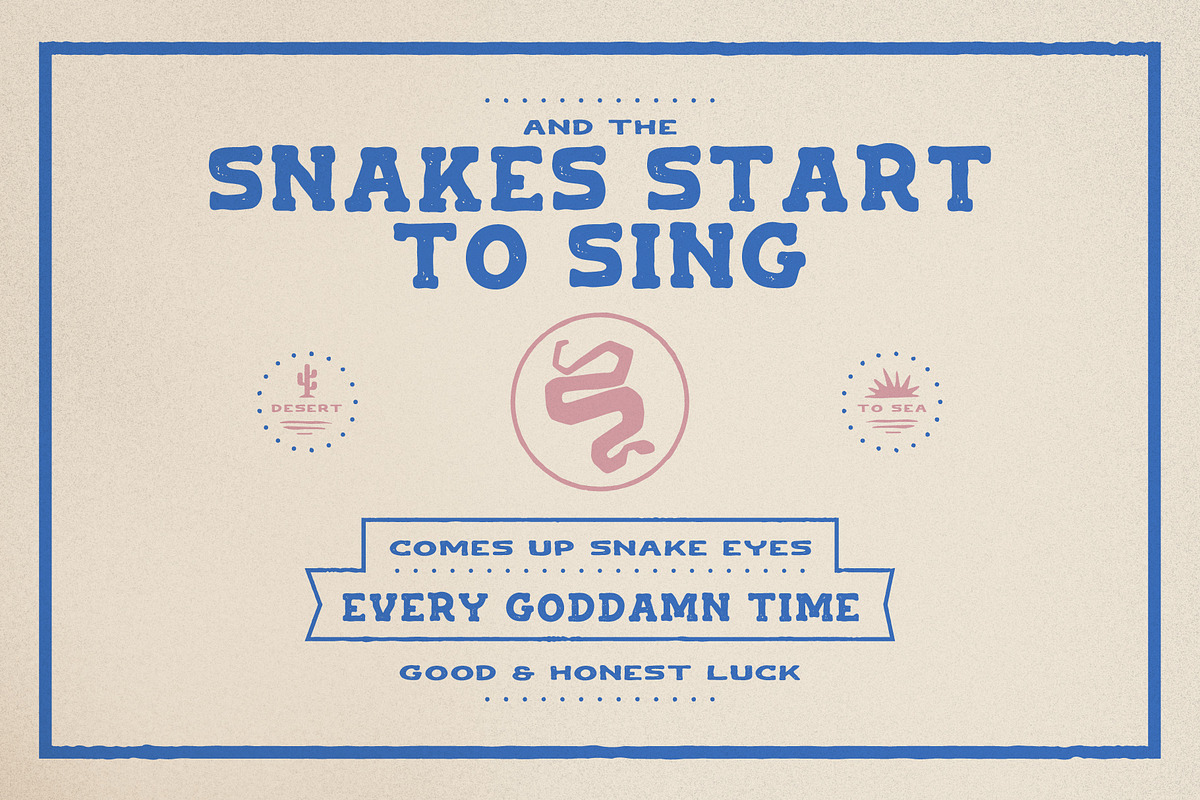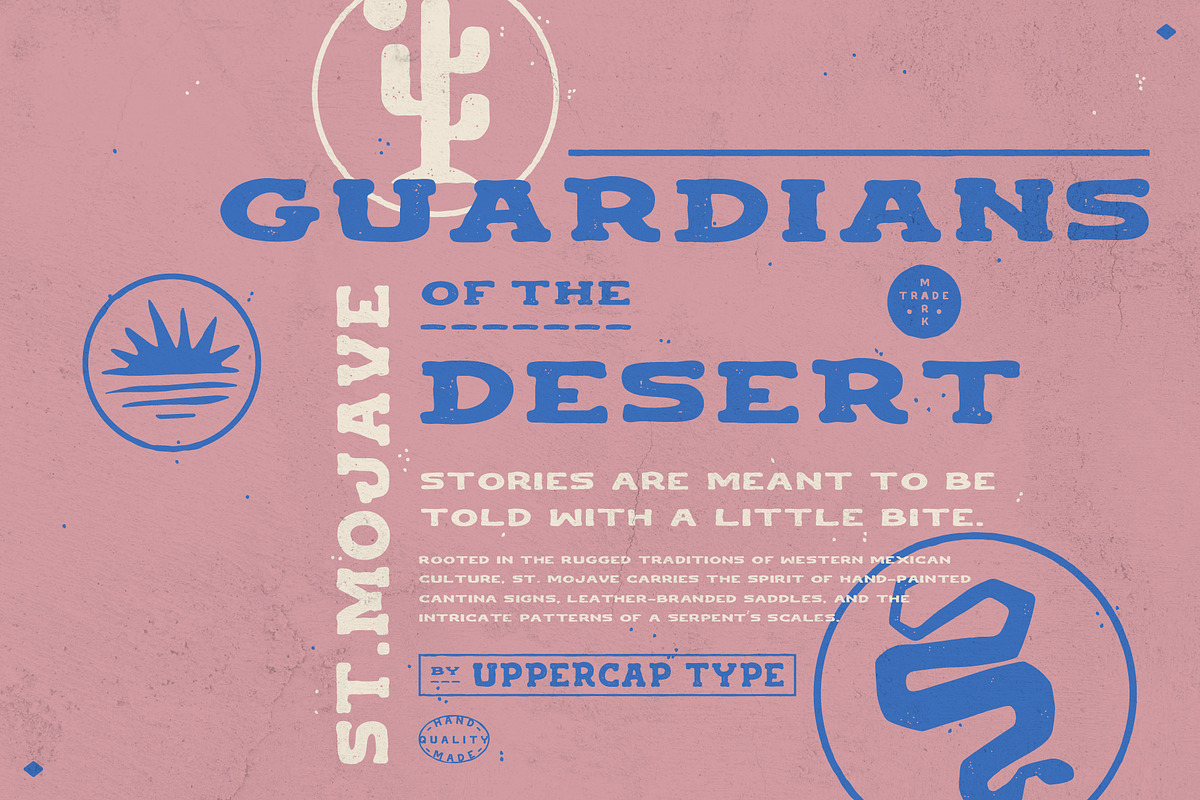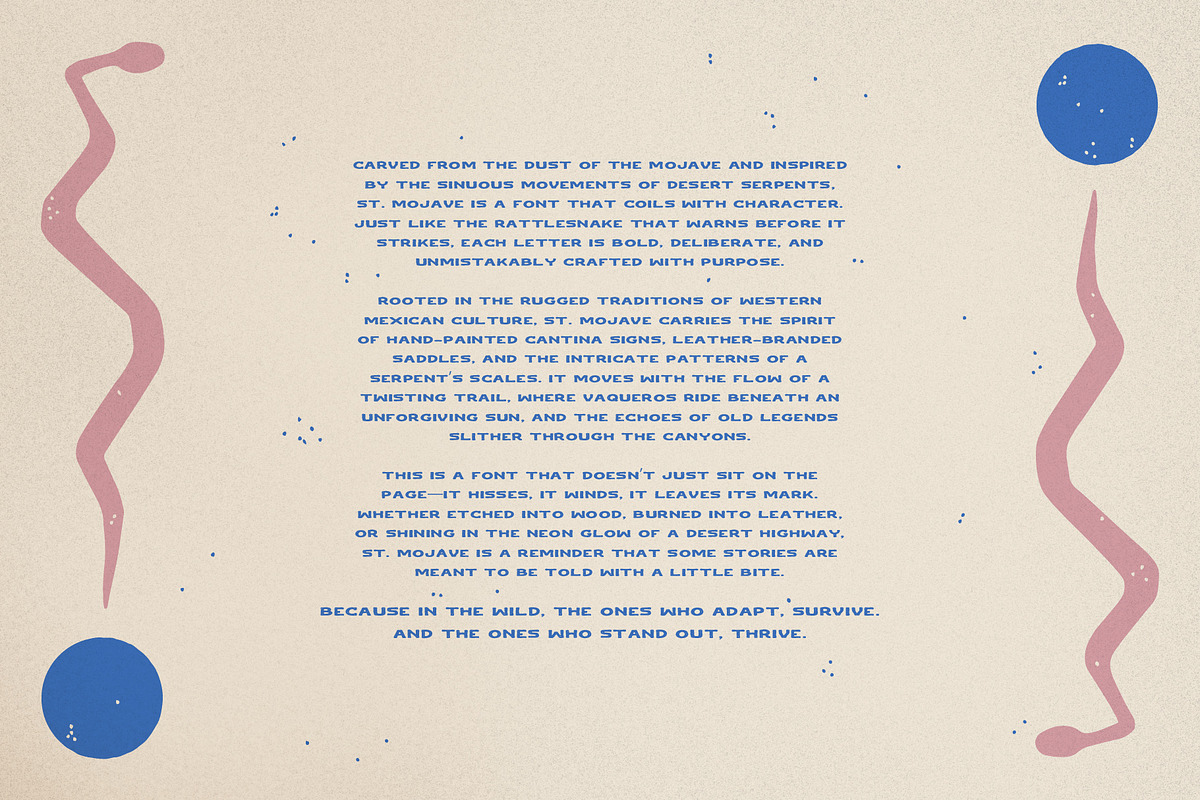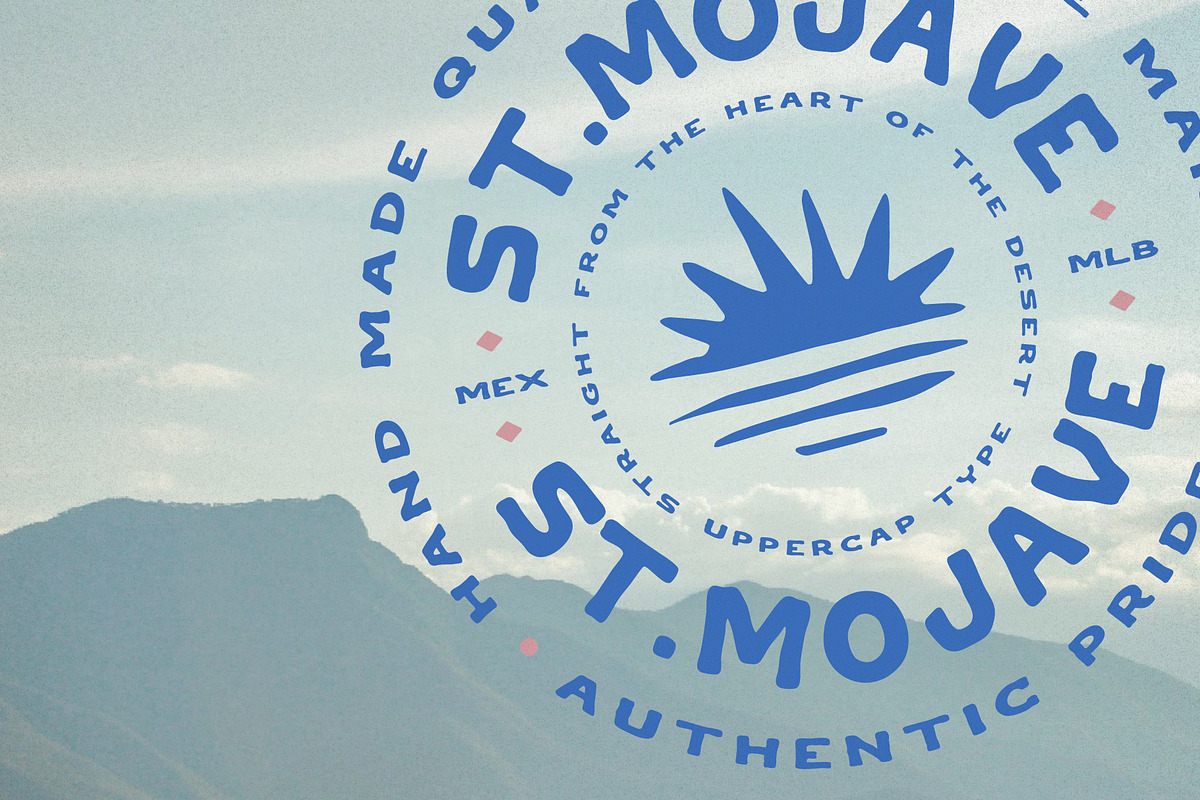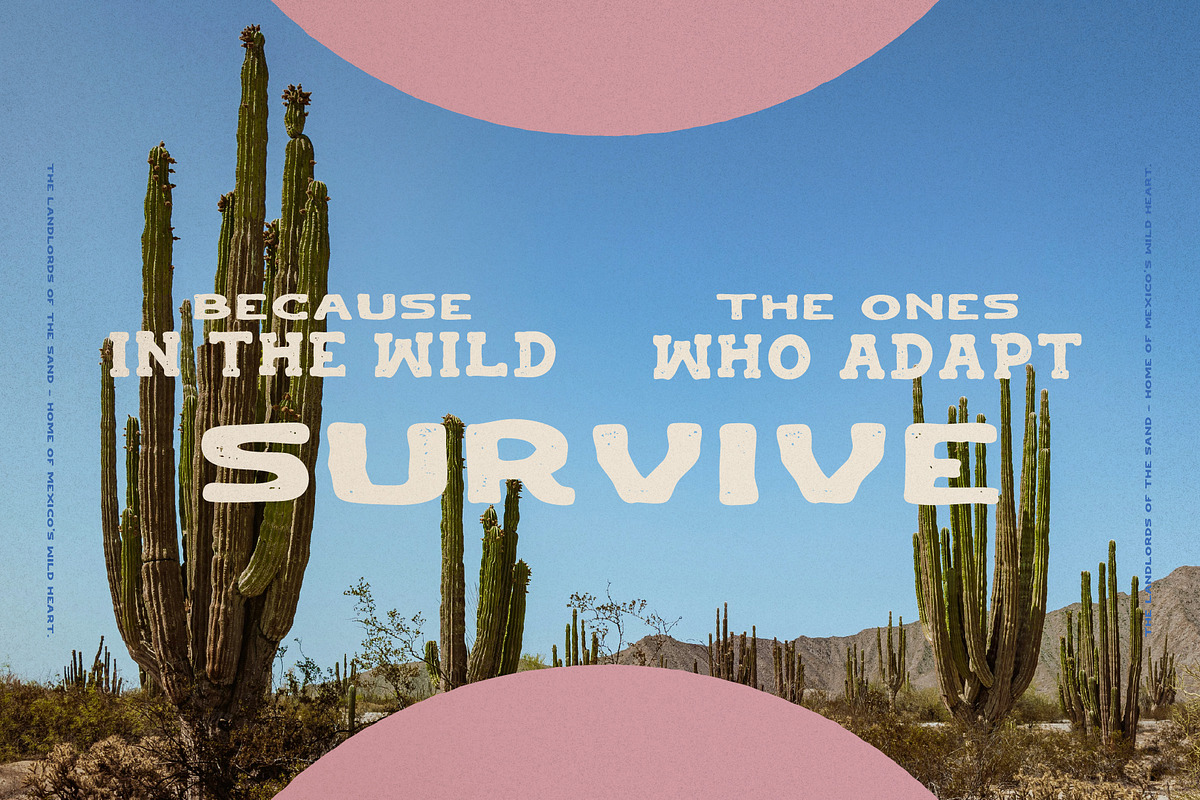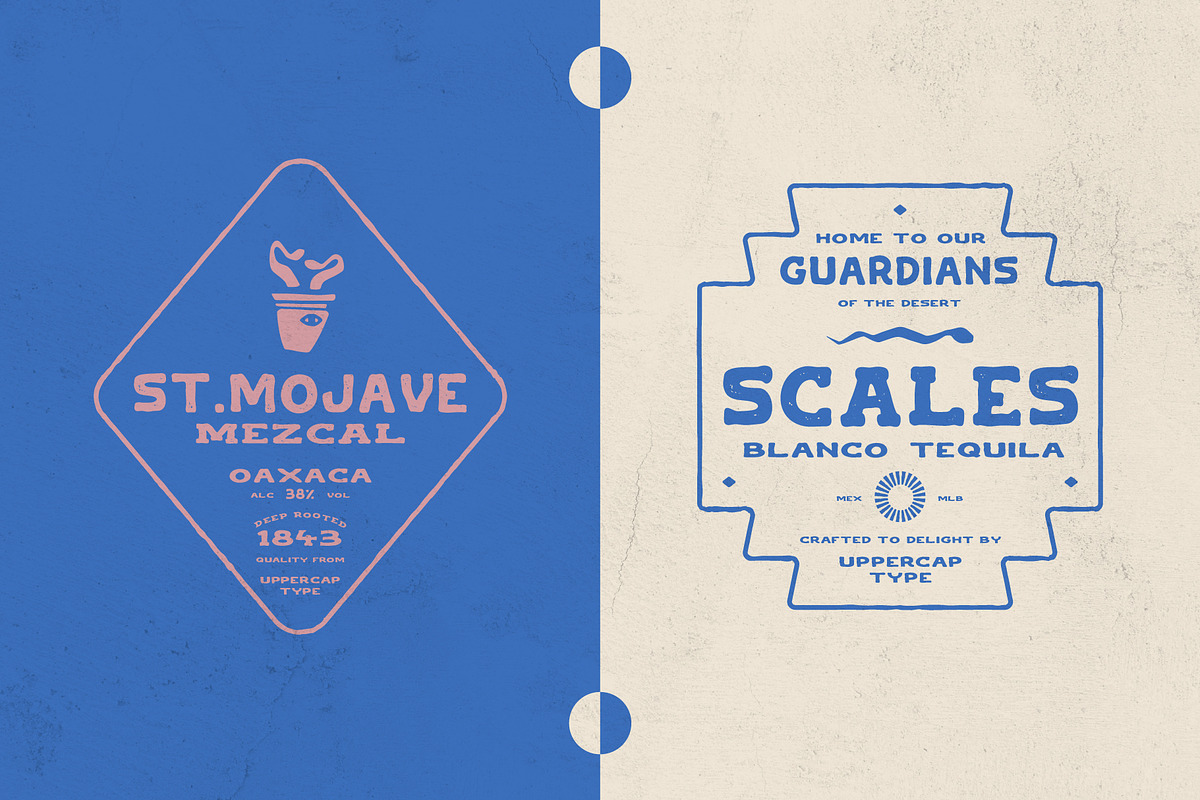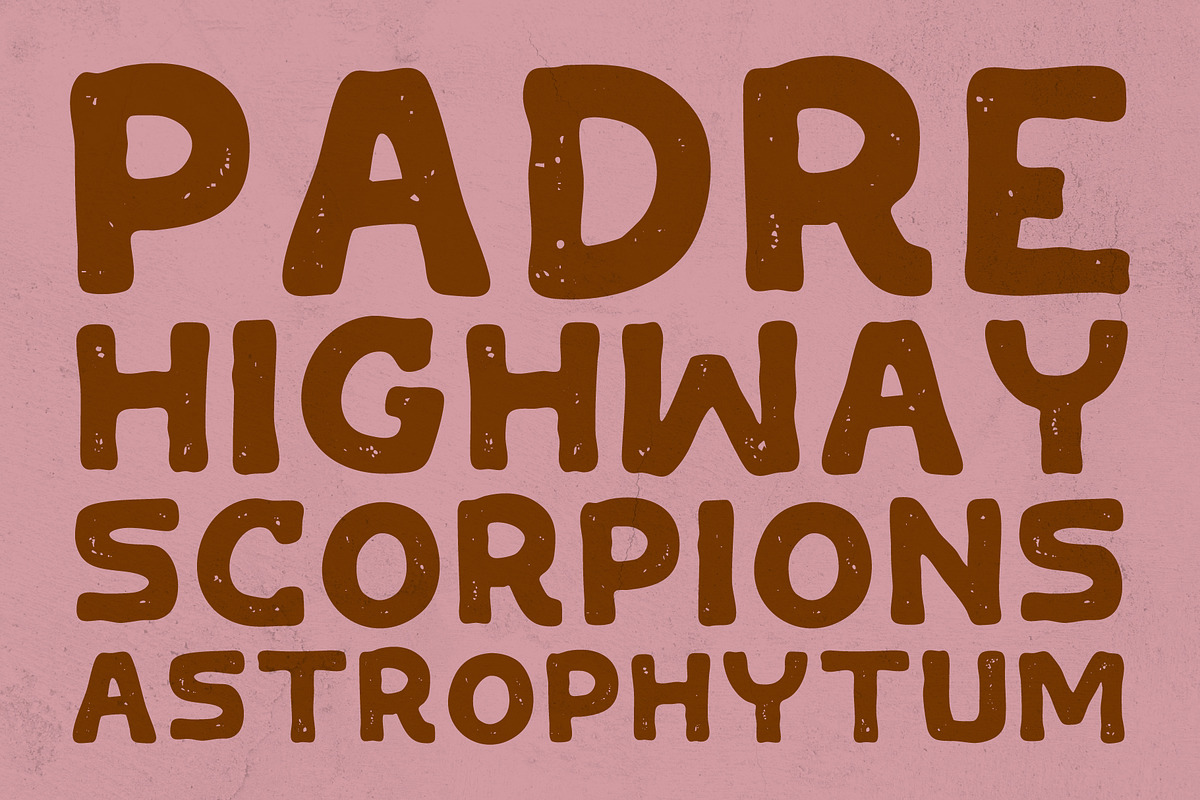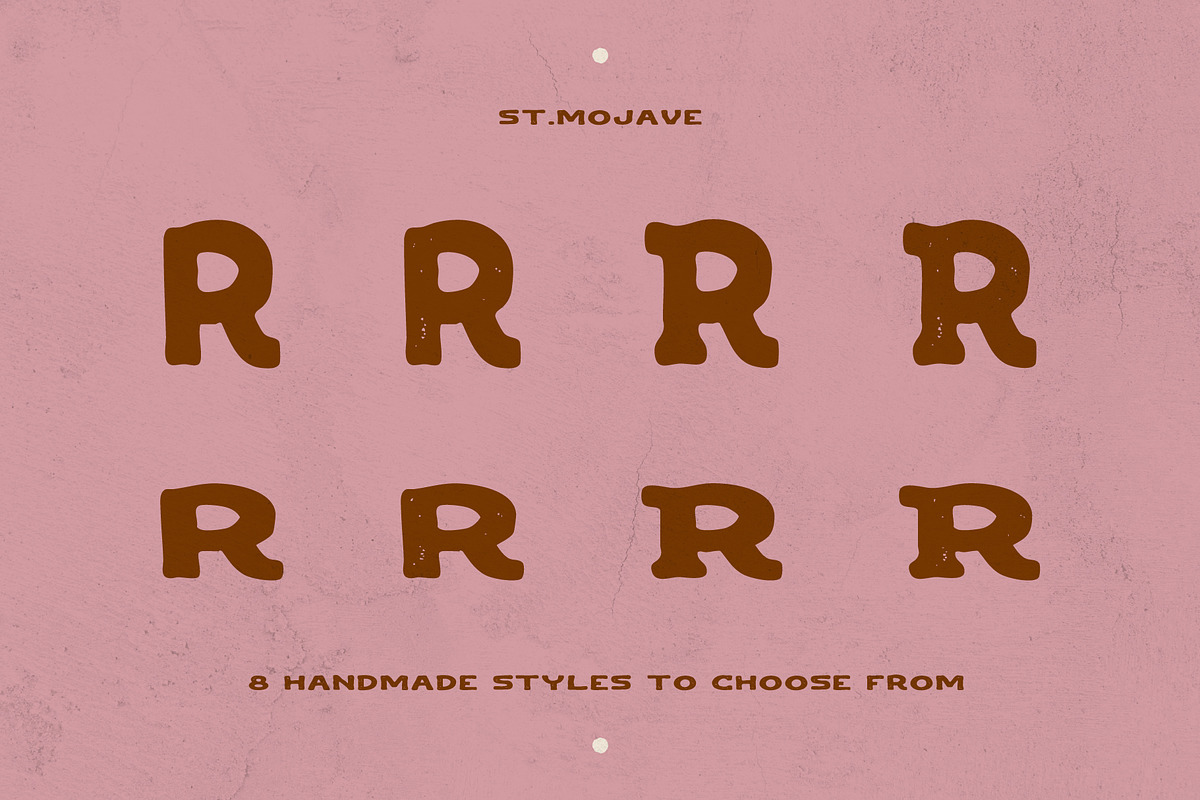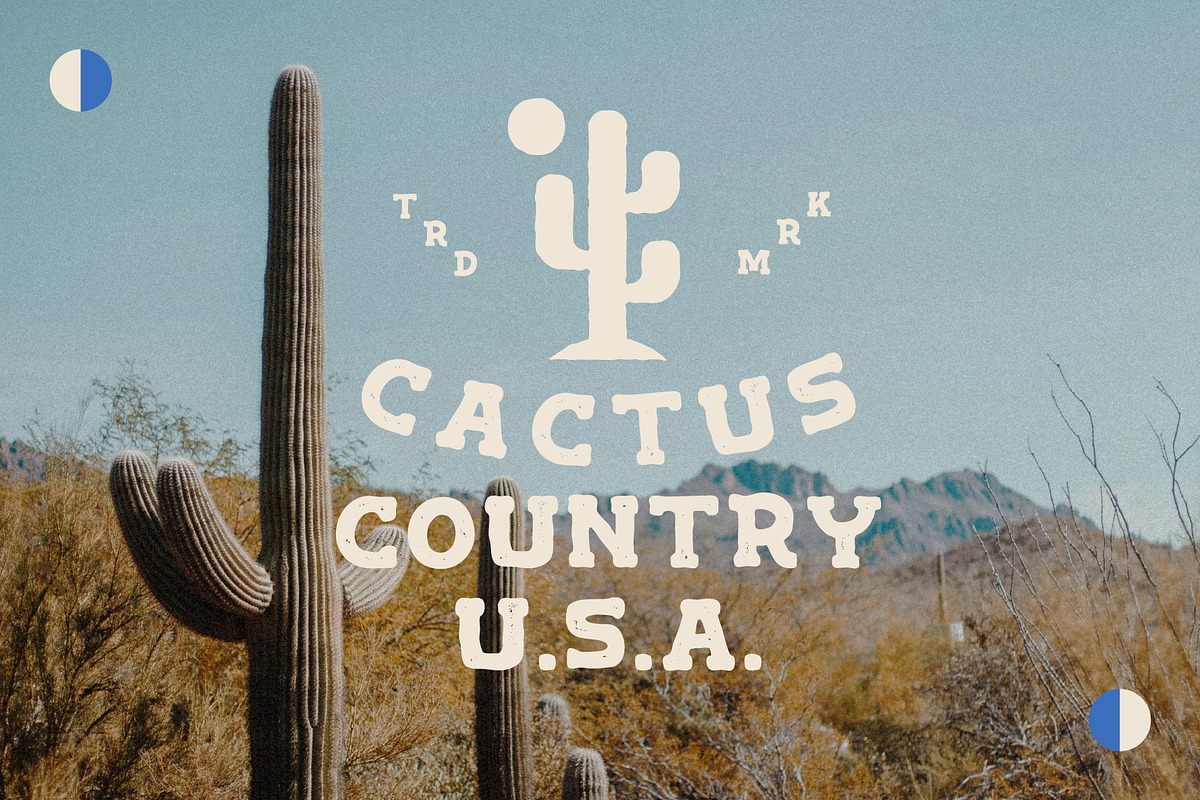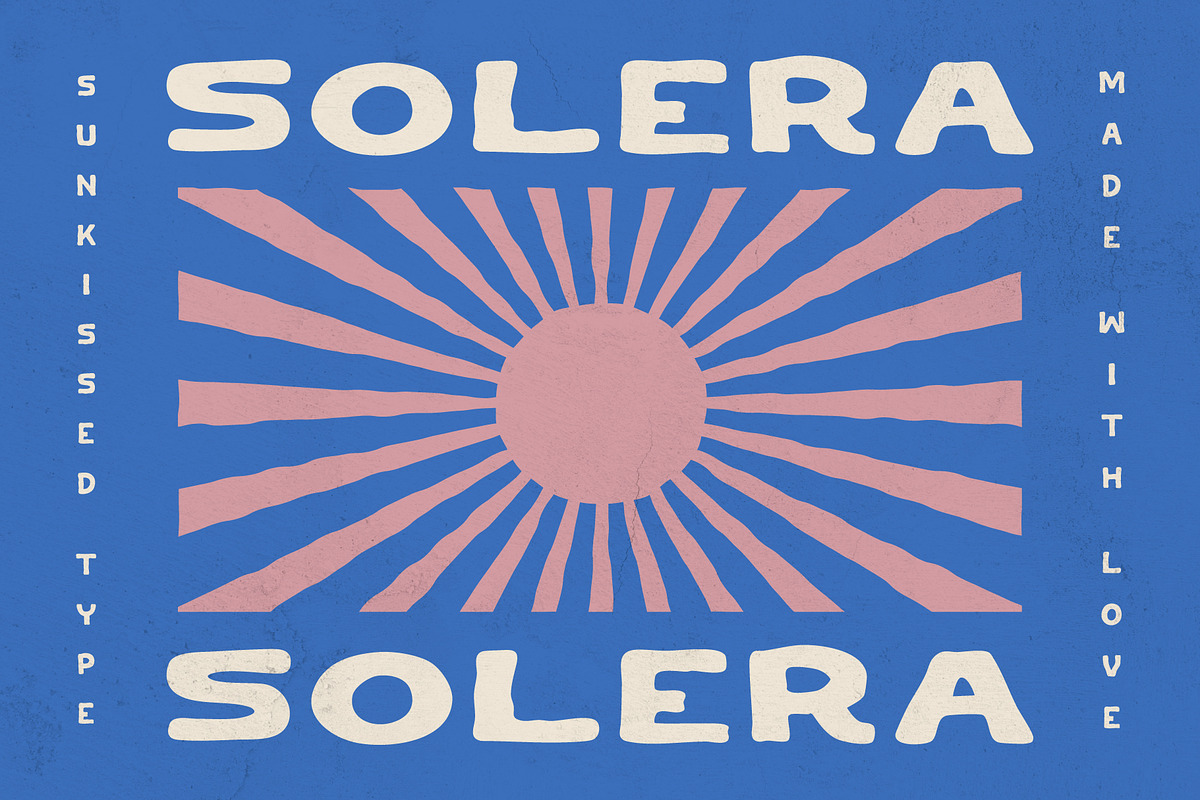
St. Mojave - Hand Drawn Font
Introducing St. Mojave! Made by hand and coming in sans, serif, wide, regular and textured styles.
Rooted in the rugged traditions of Western Mexican culture, St. Mojave carries the spirit of hand-painted cantina signs, leather-branded saddles, and the intricate patterns of a serpent’s scales. It moves with the flow of a twisting trail, where vaqueros ride beneath an unforgiving sun, and the echoes of old legends slither through the canyons.
- 8 Fonts (Regular, Wide, Sans, Serif, Textured)
- Uppercase letters
- Essential Punctuation